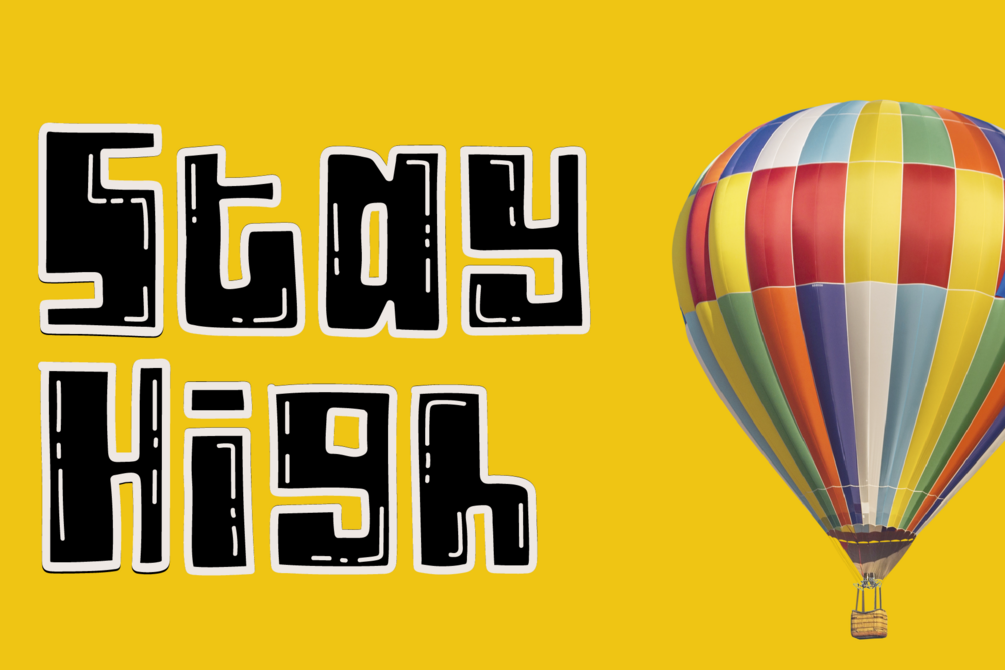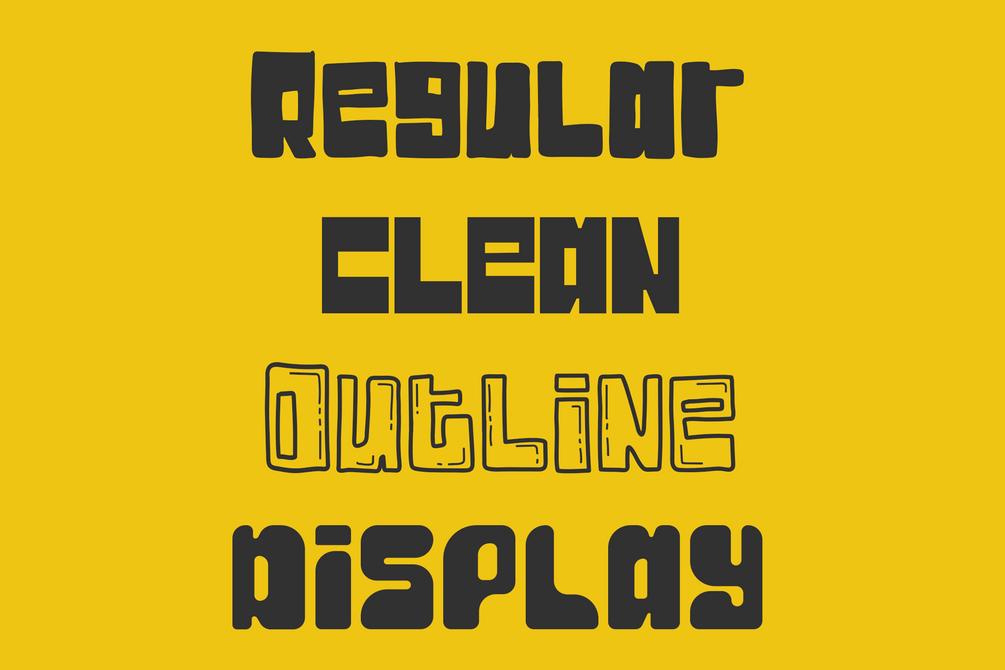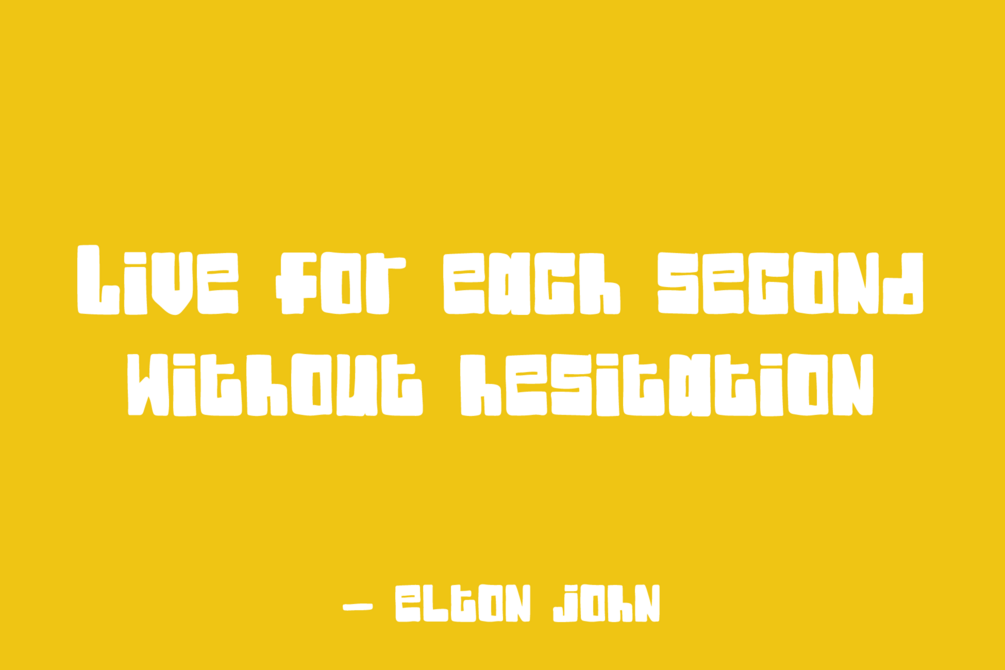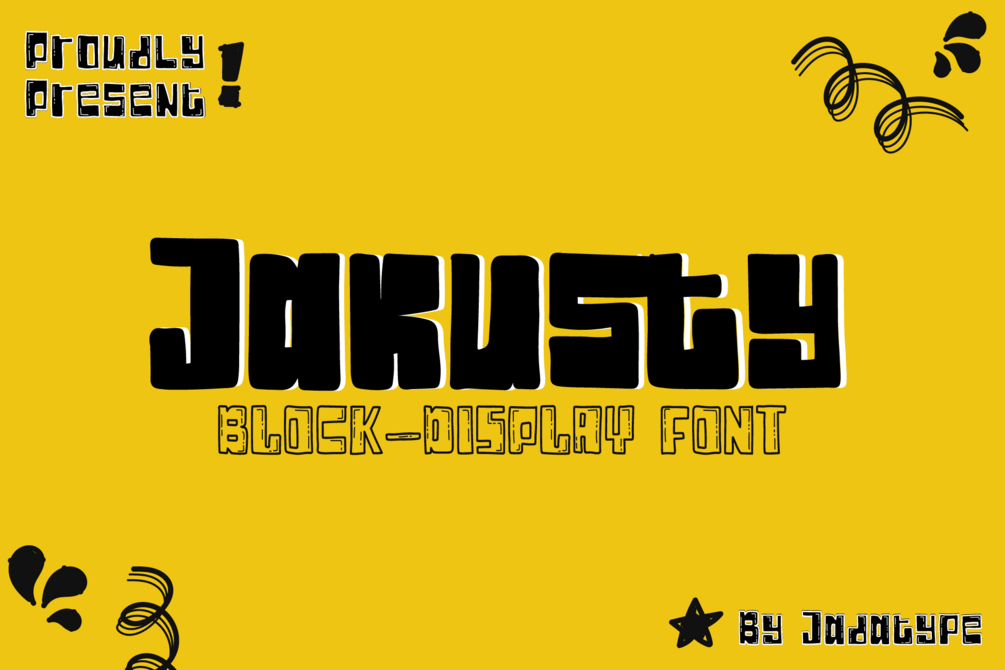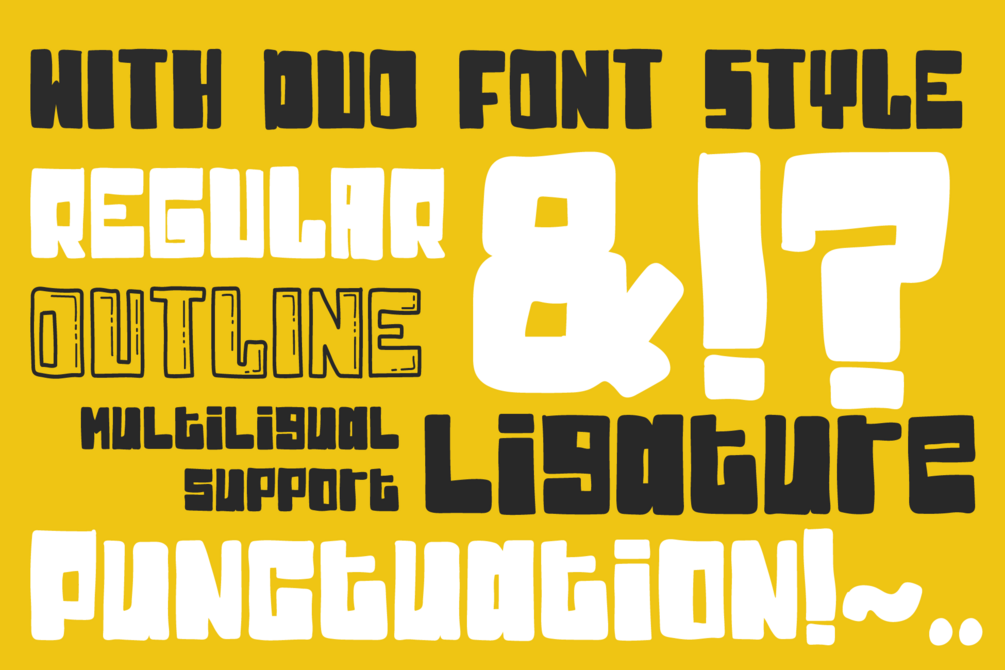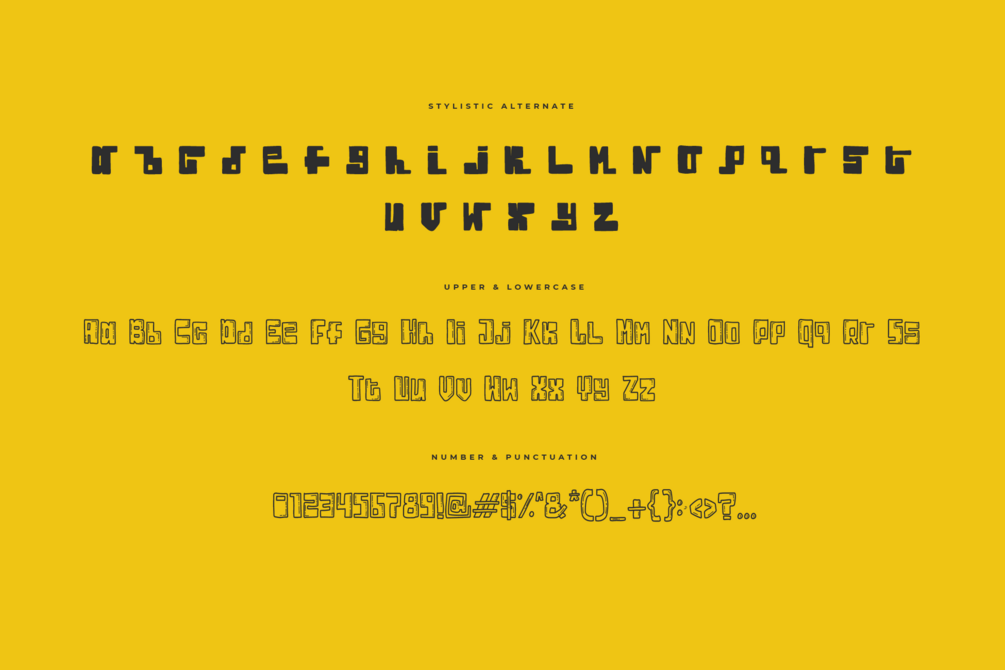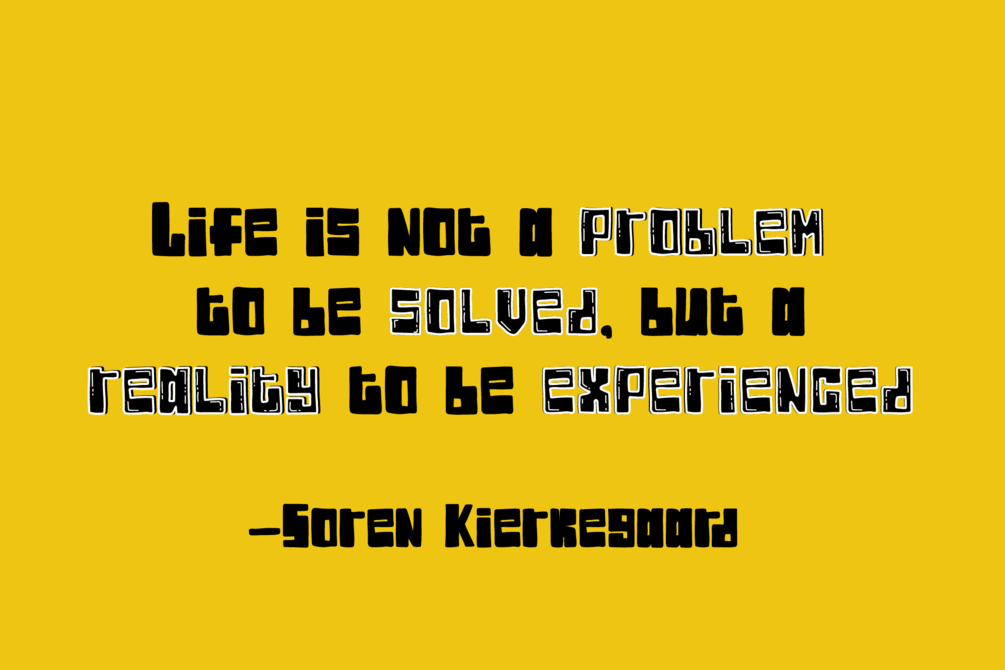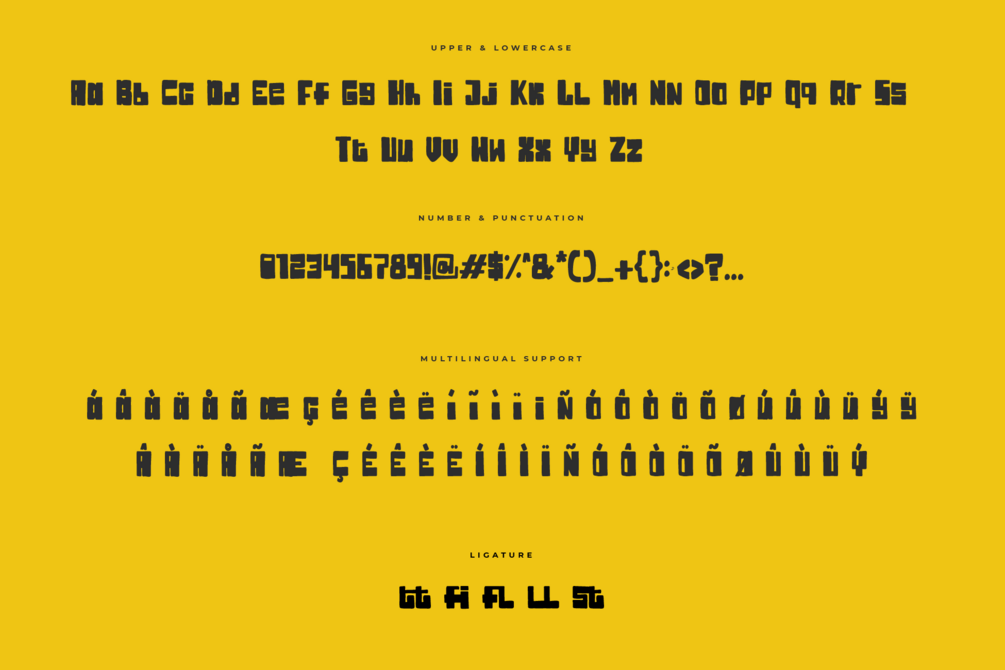
Jakusty Font
Jakusty is a display font with a variety of styles. suitable for social media, event, craft, advertisements, and so on. contains standard English letters, numbers, punctuation, alternates and several accents that support multilingualism.
• Regular, Outline, Display & Clean Version